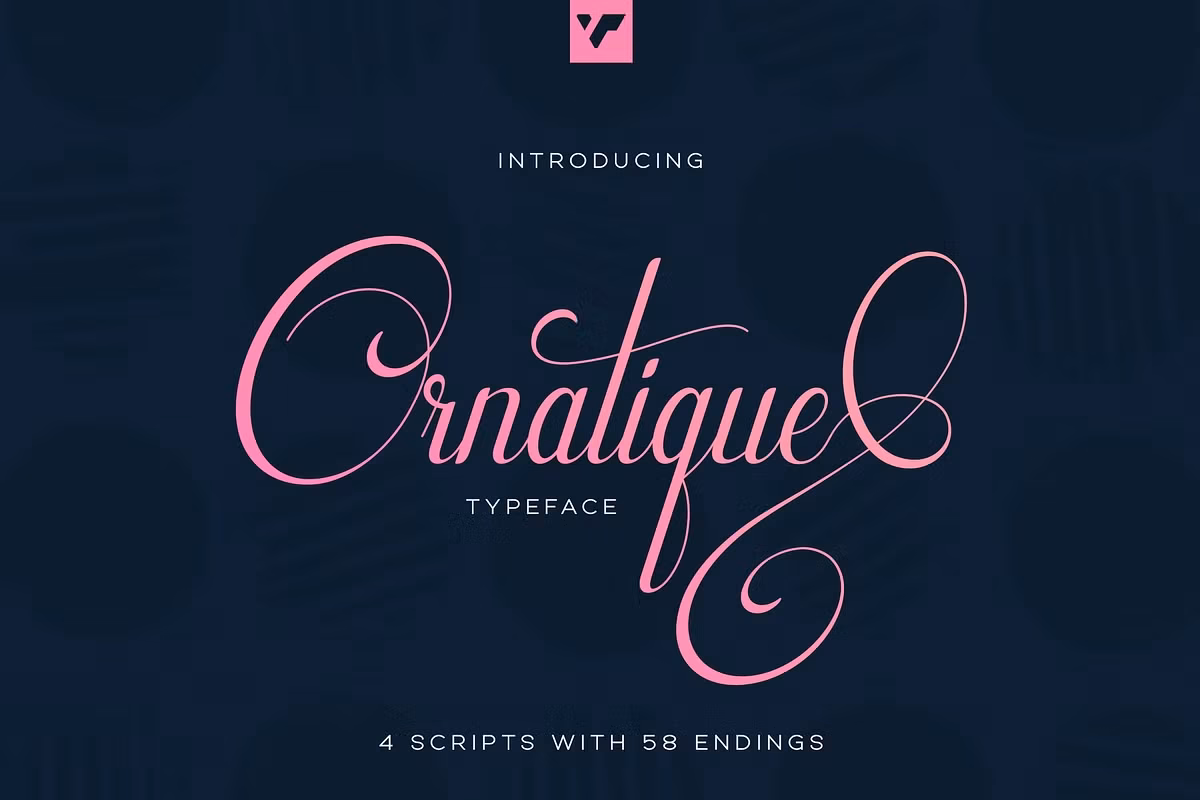
Ornatique Script – 4 Fonts Free Download is an elegant and decorative script font family featuring four unique styles that bring charm and sophistication to your designs. With its fluid strokes, stylish flourishes, and luxurious feel, this typeface is perfect for wedding stationery, upscale branding, boutique packaging, and high-end social media graphics.
Each of the four styles in the Ornatique Script – 4 Fonts Free Download set offers its own personality—from delicate and graceful to bold and expressive—giving you the flexibility to mix and match for stunning typographic compositions. Whether you need a refined signature look or a touch of ornate elegance, this font family has you covered.